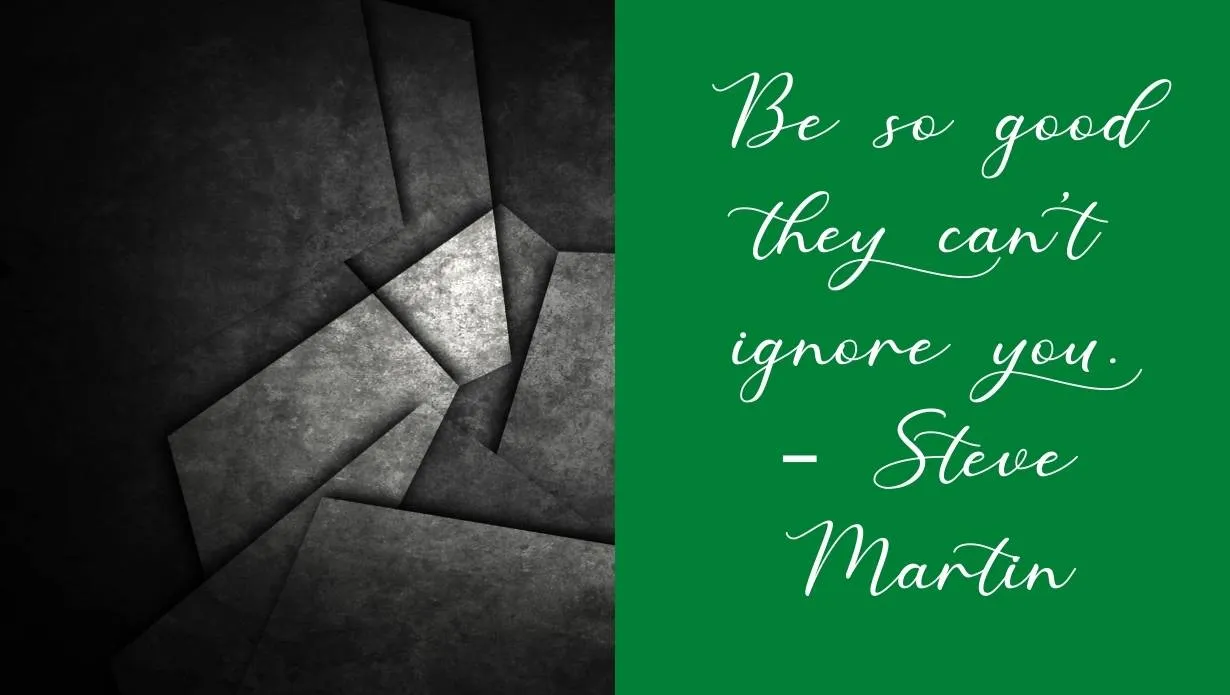
It has based on uppercase, numbers, punctuations, and special characters that are good for different kinds of projects. Due to its thin and italic swashes, it is best for creating new and old different styles of calligraphy designs. This font has a creative look that is best for every unique design.
This gorgeous typeface has many advanced features that are excellent for increasing the fame of this font.